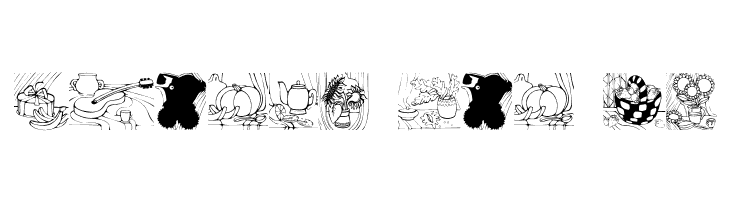
Illustrative dingbat font with diverse pictorial scenes and objects.
A decorative font featuring whimsical, hand-drawn illustrations with a woodcut style.